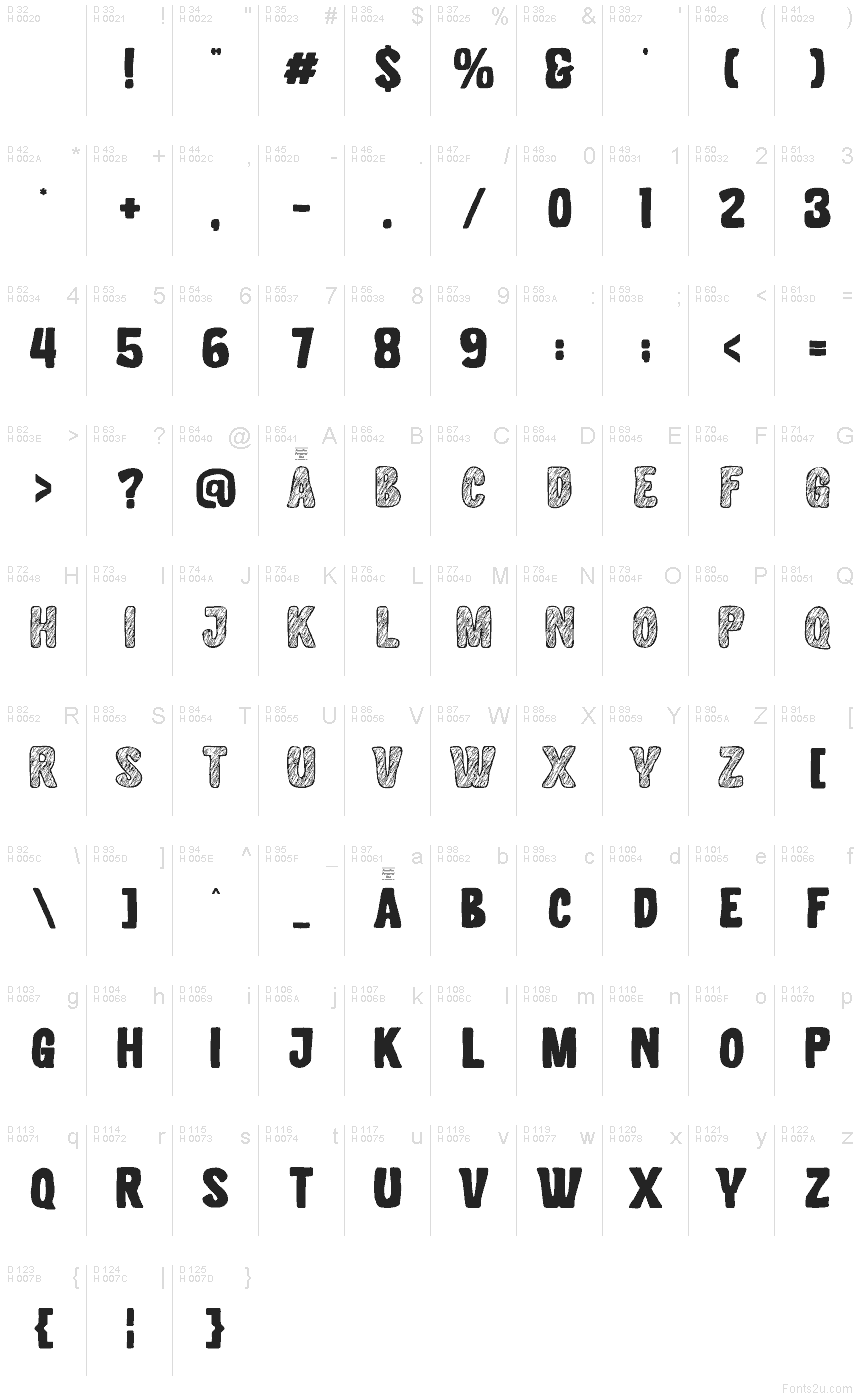
Chalk Romie
Chalk Romie font by Ermedia Studio is a free chalk handwritten display font. It solves a common headache with chalk styles: they look charming but read poorly at size. Here, chunky rounded letters carry a steady rhythm, while the grainy, hatched fill delivers that dusty, hand-rubbed texture without sacrificing clarity. The strokes feel bold and tactile—like fresh chalk dragged across a board—so headlines pop without getting messy.
Using Chalk Romie gives you quick, authentic café-board vibes that hold up in real layouts. It works beautifully for classroom posters, menu boards, kids’ book covers, event flyers, craft packaging, social media quotes, and market signage. For balance, pair this free font with a clean geometric sans for body copy, and give it generous line spacing to let the textured letters breathe.